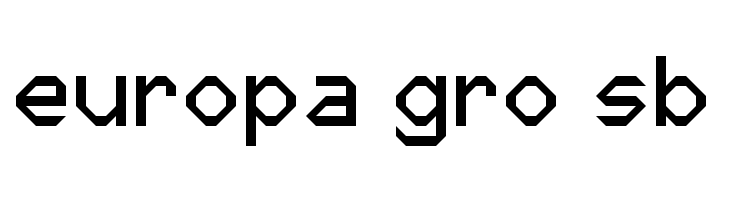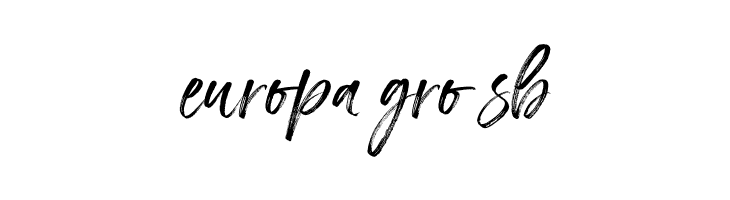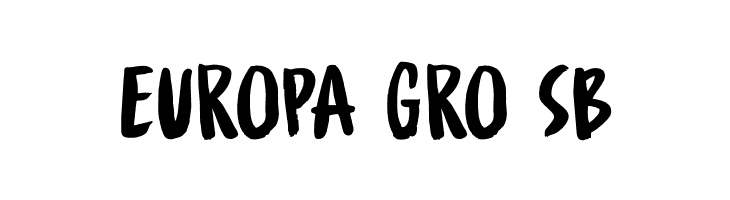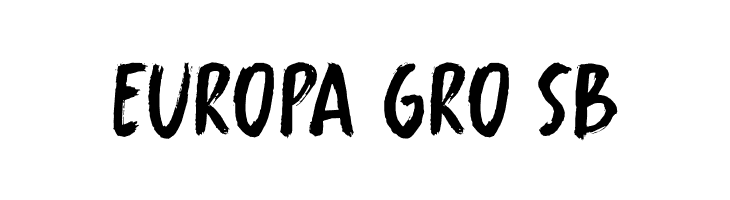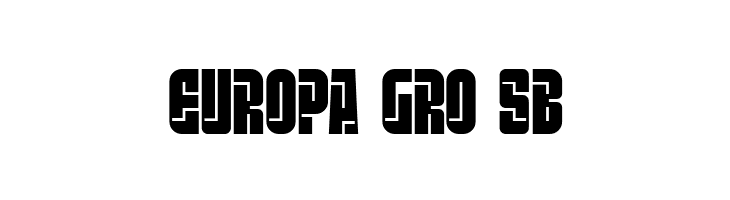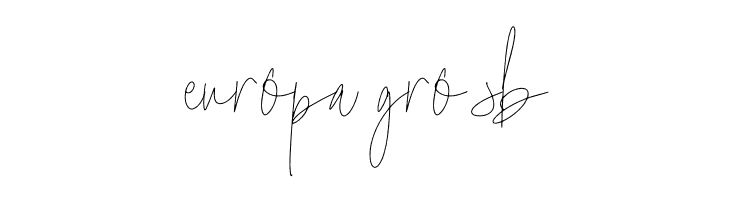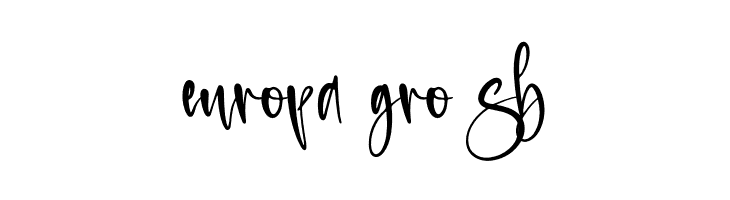
A geometric, angular font with a futuristic, digital aesthetic.
A dynamic, handwritten-style font with expressive strokes and artistic flair.
A sleek, modern font with geometric lines and rounded edges.
A bold, hand-painted style font with an expressive and dynamic appearance.
A bold, brush-stroke font with a dynamic, hand-painted texture and playful whale illustrations.
A bold, geometric font with an industrial and robust design.
A playful, casual handwritten script with thin, flowing lines.
An elegant, flowing font with sophisticated swashes and decorative flourishes.
A bold, brush-style script with a distressed texture and dynamic strokes.
A dynamic, expressive handwritten font with fluid strokes and artistic flair.